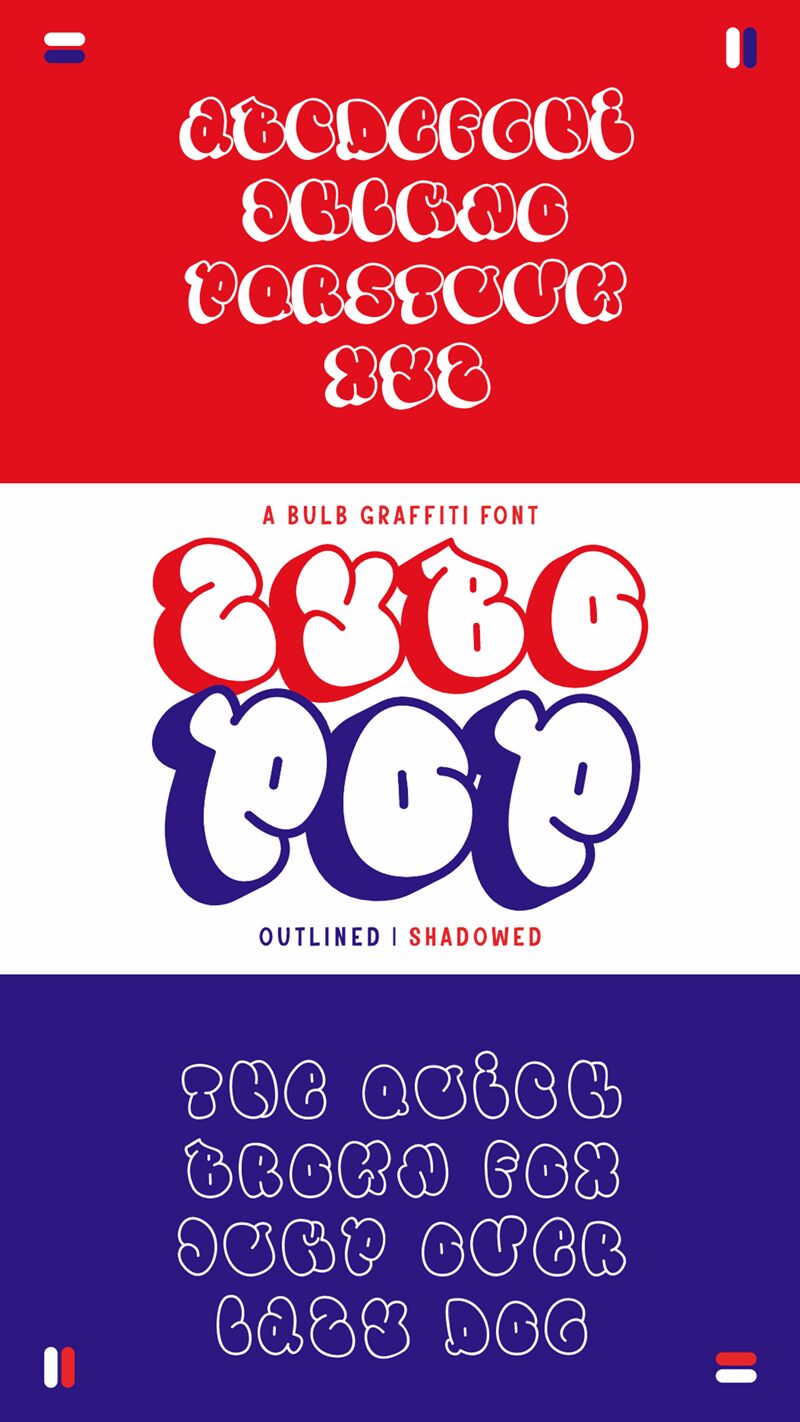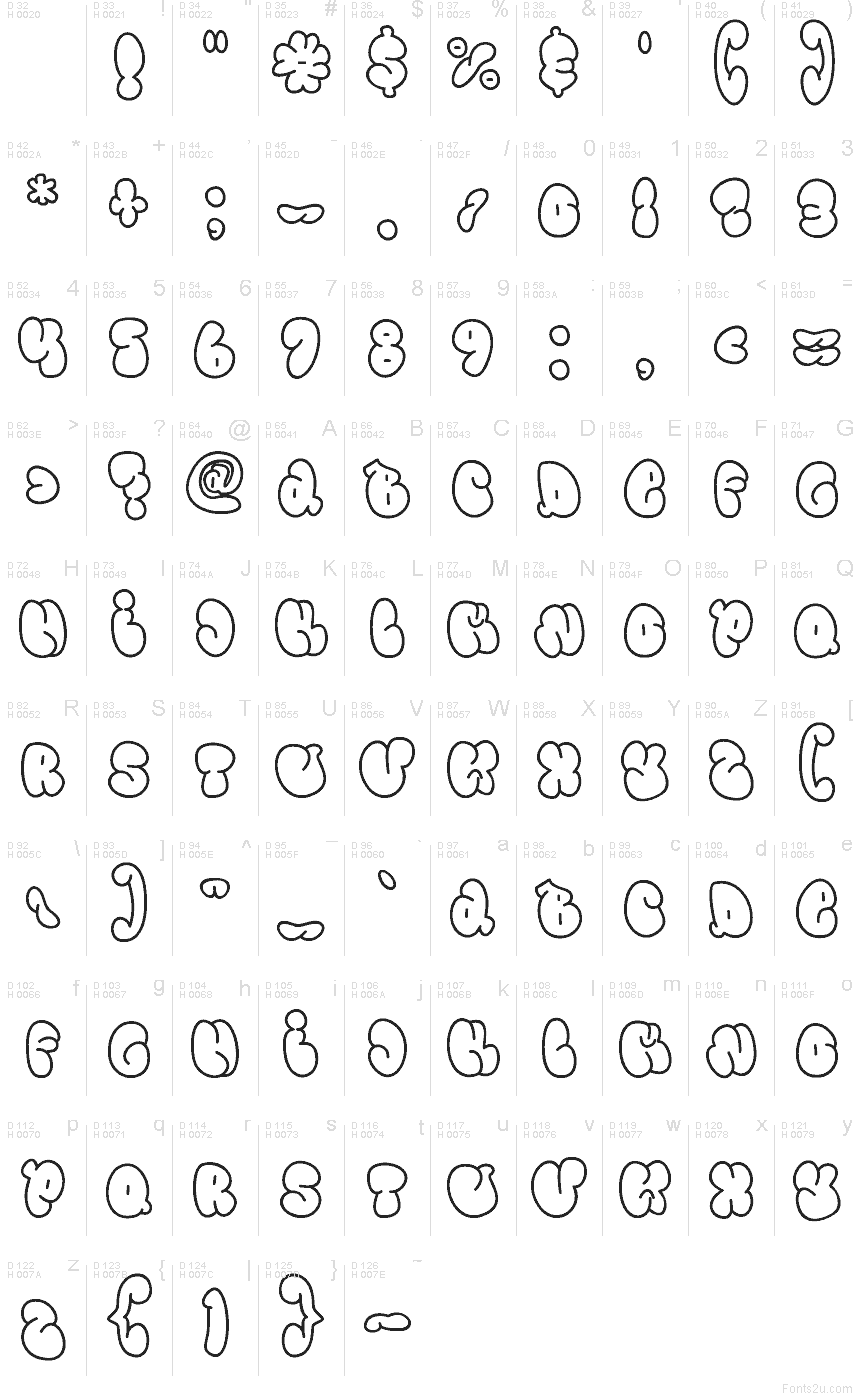
Zybo Pop Outline font by Muhammad Panji Ramdhani of Figuree Studio is a free graffiti font in the Zybo Pop family, drawn as puffy bubble letters with a clean outline that keeps the energy without turning into a blob. The rounded shapes feel airy and bouncy, with generous spacing that reads fast even at a glance. It’s got that marker-on-a-sketchbook vibe-playful, loud, and friendly rather than gritty.
Using Zybo Pop Outline on sticker designs, youth event flyers, streetwear tags, snack packaging, playful logos, YouTube thumbnails, and social posts gives your words instant pop with minimal effort. This free font shines in big sizes where the outline can breathe; try pairing it with a simple condensed sans for captions so the bubbles stay the star. Zybo Pop Outline also works nicely as a headline layer over photos, since the open centers keep things light.